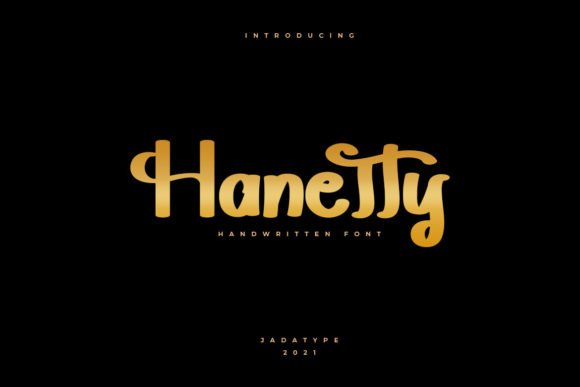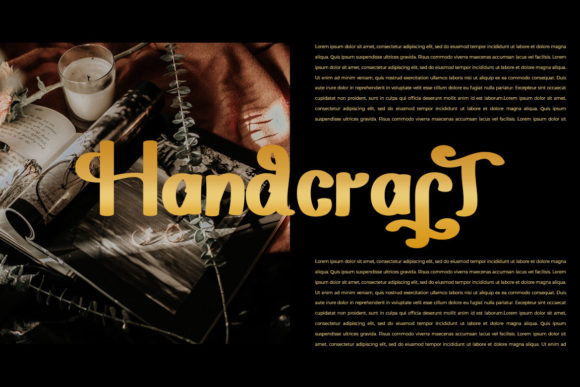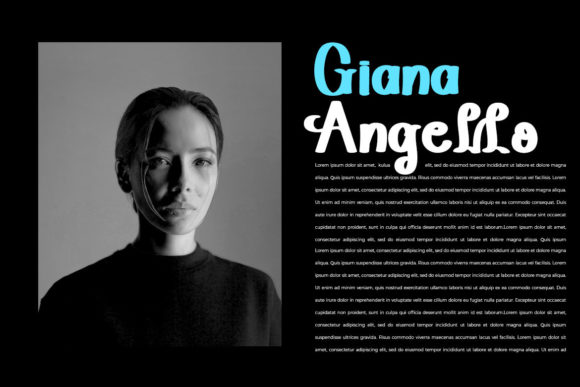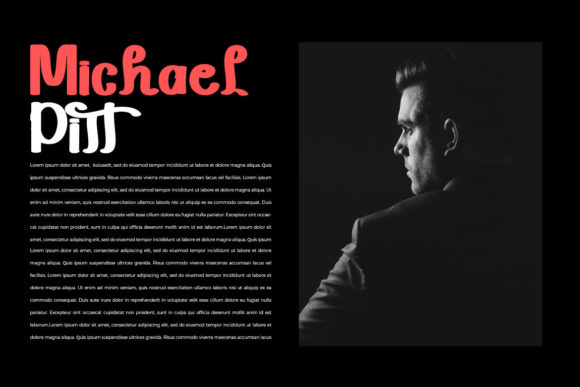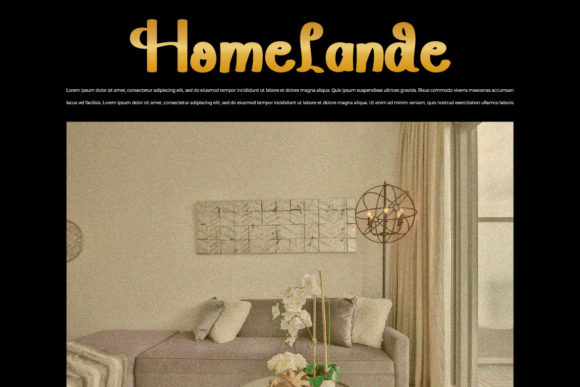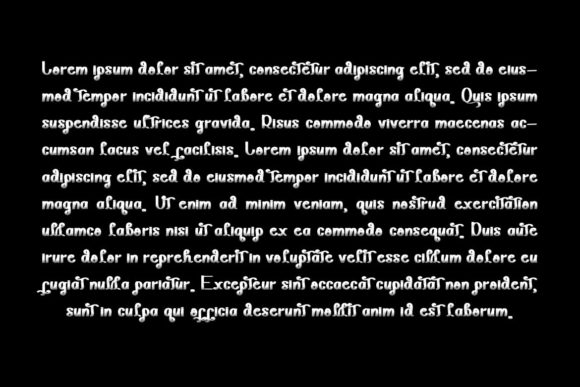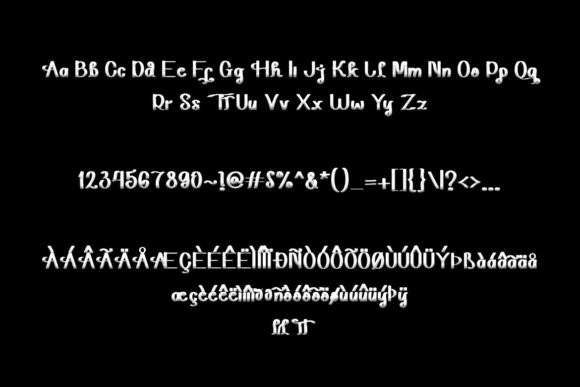
Discover the Magic of Hanetty Font: Elevate Your Designs with Style
Have you ever stumbled upon the perfect font that makes your creative project come alive? For designers, finding that elusive font that captures the essence of their vision is a true thrill. It’s a moment that sparks joy, creativity, and a sense of accomplishment. And, for those who’ve experienced it, they know exactly what we’re talking about.
Enter Hanetty Font, a masterfully designed handwritten font that’s about to become your new favorite. With its classy calligraphic influences and fresh, contemporary feel, Hanetty Font is the perfect addition to any project. Whether you’re working on a wedding invitation, a branding campaign, or a social media graphic, this font is sure to elevate your designs to new heights.
As a designer, you know how valuable a great font can be. It’s the difference between a good design and a great one. With Hanetty Font, you’ll be able to bring your creative vision to life in a way that’s both elegant and eye-catching. So, what are you waiting for? Fall in love with Hanetty Font and discover the magic of this incredible handwritten font.
Hanetti Font Key Features
- Font Size: Hanetti Font is available in a range of sizes, including 18, 24, 36, 48, and 60 point options, making it suitable for various applications and designs.
- Resolution: The font is designed to be scalable, allowing it to maintain its quality at various resolutions, including 72 dpi and 300 dpi.
- Unique Characteristics: Hanetti Font features a unique blend of modern and traditional elements, with intricate details and ornaments that set it apart from other fonts.
- Font Style: Available in multiple styles, including Regular, Bold, Italic, and Bold Italic, providing users with flexibility and versatility in their designs.
- Language Support: Hanetti Font supports a wide range of languages, including Latin, Cyrillic, and Greek scripts, making it suitable for international applications.
Hanetty Font Review
I recently had the chance to work with the Hanetty Font, and I have to say, it’s been an interesting experience. Here’s my honest take on this font.
- ✨ Elegant and refined aesthetic: Hanetty Font has a unique, vintage vibe that can add a touch of sophistication to any design project.
- ✨ Great for luxury brands: This font is perfect for high-end brands that want to convey a sense of exclusivity and refinement.
- ✨ Versatile: Hanetty Font can be used in a variety of contexts, from logos to body text, making it a great addition to any designer’s toolkit.
- ⚠️ Limited character set: Hanetty Font’s character set is relatively small, which can be a limitation for designers who need to use special characters or languages with complex typography.
- ⚠️ Not ideal for small text: Due to its elegant and refined aesthetic, Hanetty Font can be difficult to read in small sizes, making it less suitable for body text or small-scale designs.
Overall, I think Hanetty Font is a solid choice for designers who are looking for a unique and sophisticated font. While it may have some limitations, its elegant aesthetic and versatility make it a great addition to any design project.
Practical Application Guide: Hanetty Font
To use Hanetty Font in Adobe Photoshop or Illustrator, go to ‘Type’ > ‘Font’ and search for ‘Hanetty’ in the font list. You can also use the ‘Character’ panel to adjust font properties. Hanetty Font is ideal for creating custom logos, branding materials, and typography-based designs. Use it in conjunction with bold shapes and geometric patterns to add visual interest to your design.
To use Hanetty Font in PowerPoint or Word, go to ‘Home’ > ‘Font’ and select ‘Hanetty’ from the font list. You can adjust font size, color, and alignment to suit your presentation or document needs. Hanetty Font is perfect for creating eye-catching titles, headings, and body text. Use it to add a touch of elegance and sophistication to your presentations and documents.
Hanetty Font is versatile and can be used in a variety of projects, including:
– Social media posts and graphics
– Invitations and event materials
– Logos and branding materials
– Typography-based designs and posters
– Presentations and documents
Tips for Getting the Most Out of Hanetty Font